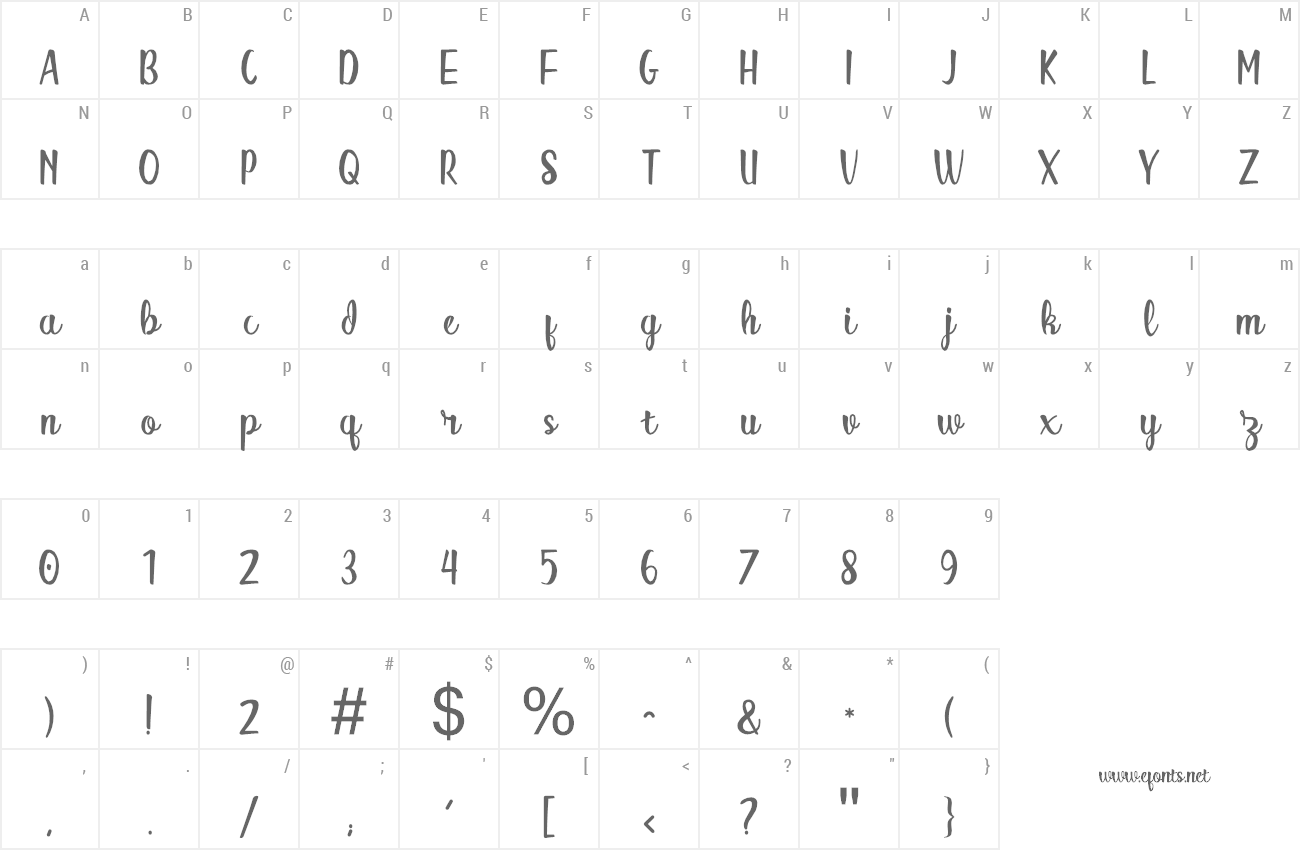
| Font name: | Alitta |
| Author: | Ibnu Utomo |
| Note by Ibnu Utomo | |
Alitta is casual script font. Easy to use the opentype feature and very suitable for photography, watermark, social media posts, advertisements, logos & branding, invitation, product designs, label, stationery, wedding designs, product packaging, special events or anything that need handwriting taste. Whats Include? 1. Uppercase and lowercase characters 2. Supports international languages 3. Opentype features: stylistic alternates, ligature, titling, stylistic set 4. Accessible in the Adobe Illustrator Glyphs panel, or under Stylistic Alternates in the Adobe Photoshop OpenType menu, Adobe InDesign, Corel Draw, even work on Microsoft Word. 5. Alitta TTF and OTF files PUA Encoded Characters - Fully accessible without additional design software. Link to purchase full version and commercial license: https://fontbundles.net/omotu/194813-alitta https://www.creativefabrica.com/product/alitta/ https://thehungryjpeg.com/product/3524371-alitta/ Thanks for looking, and I hope you enjoy it! Please don't hesitate to drop me a message if you have any issues or queries. ~ Omotu ~ |